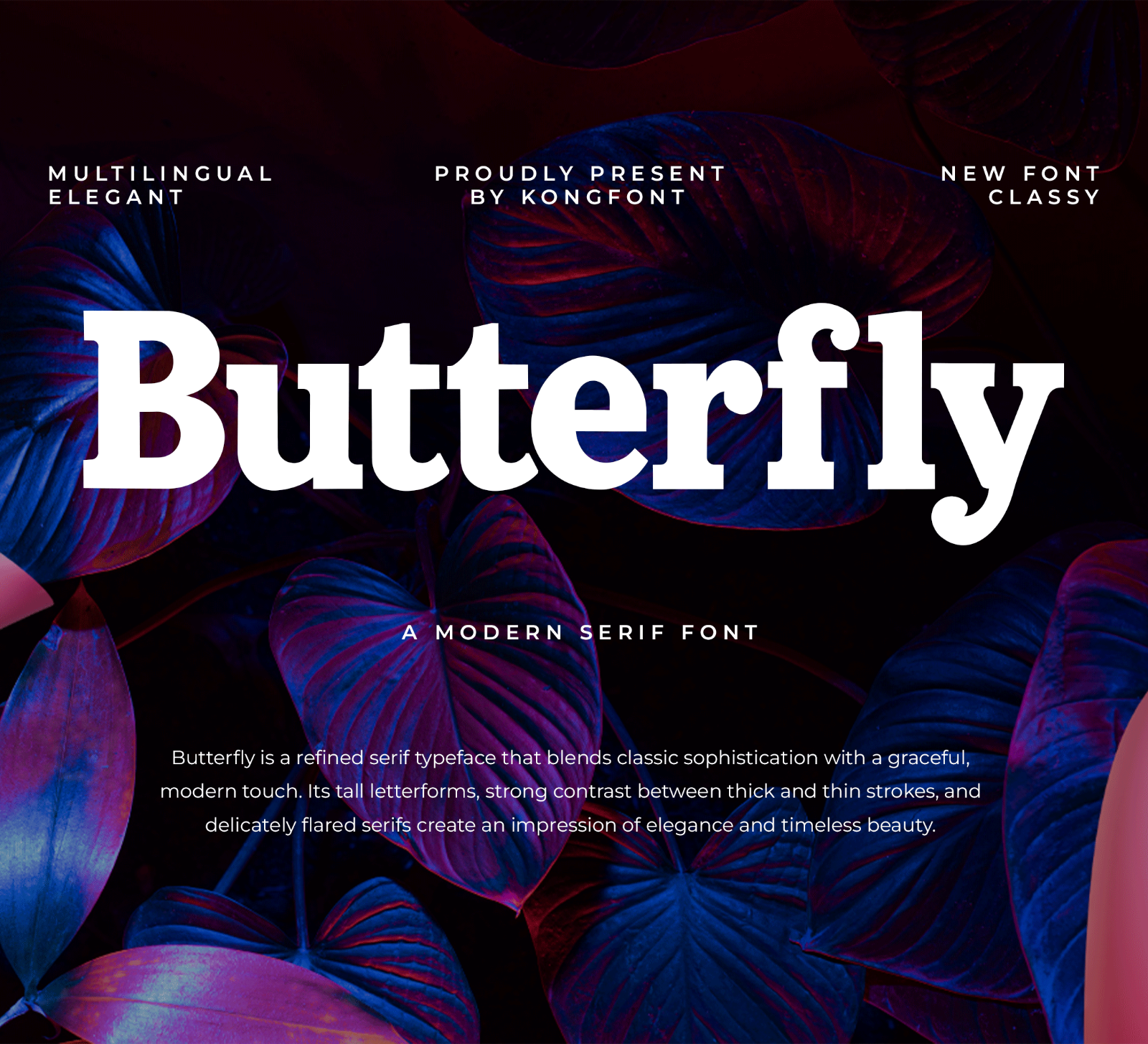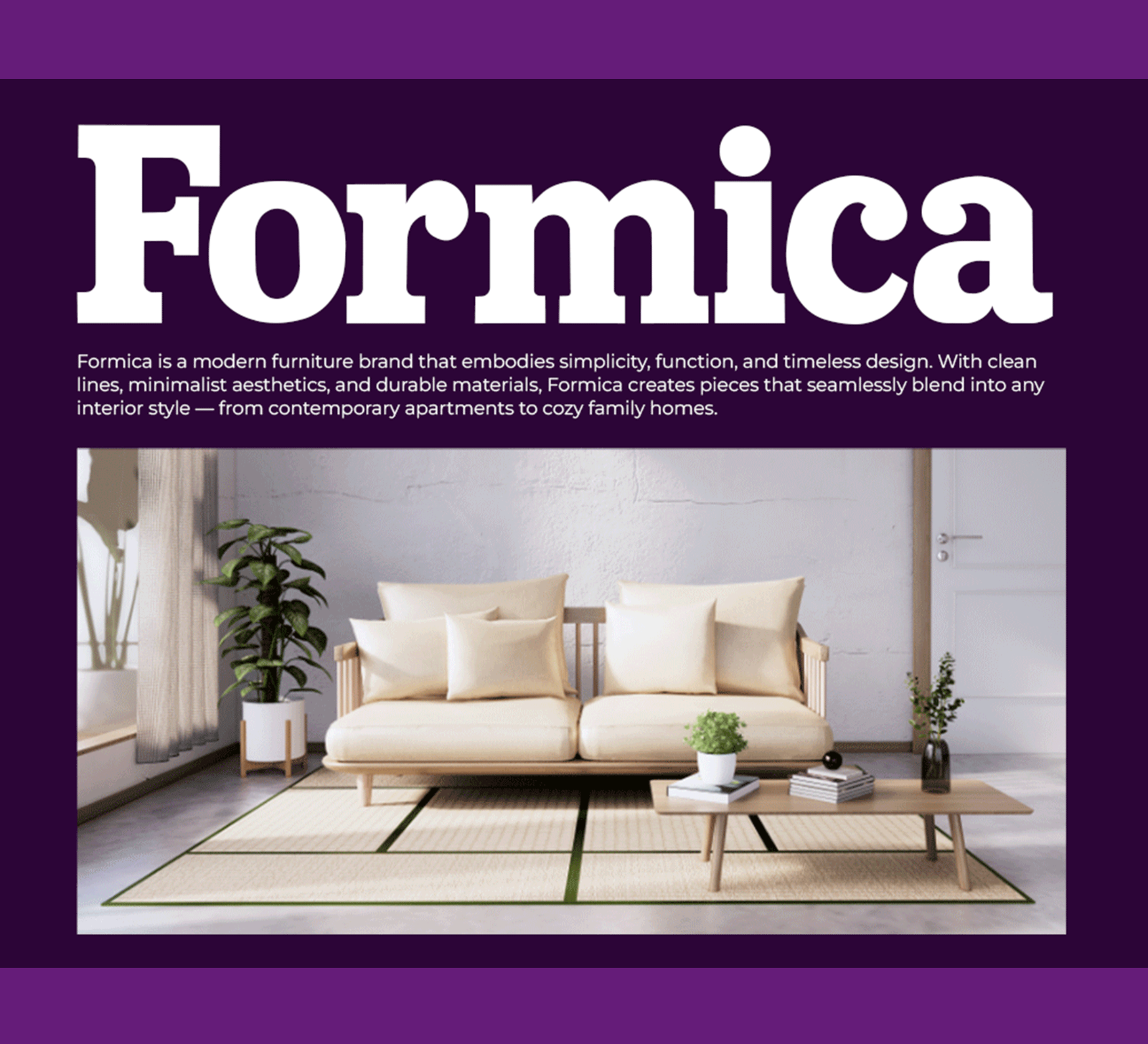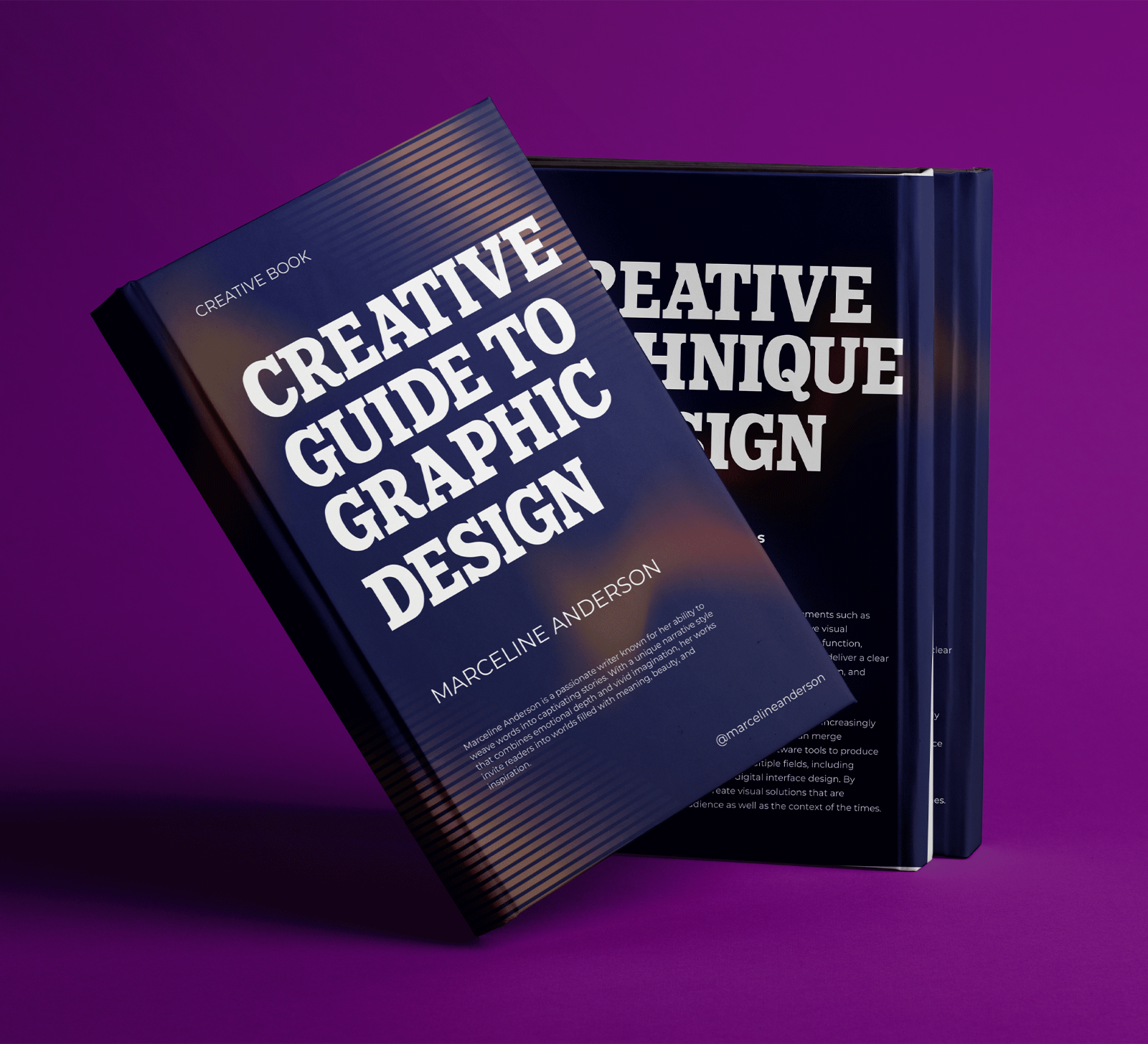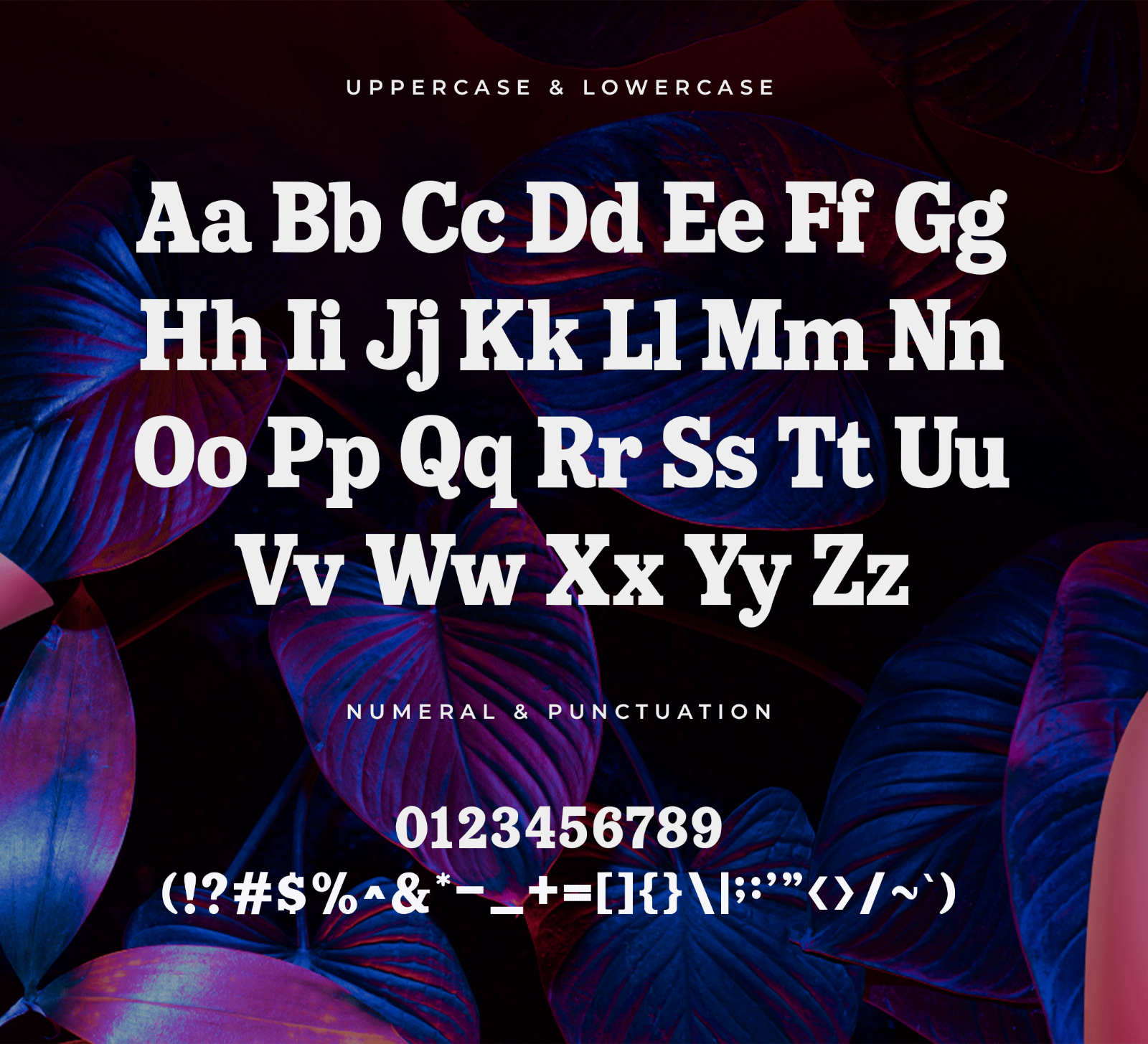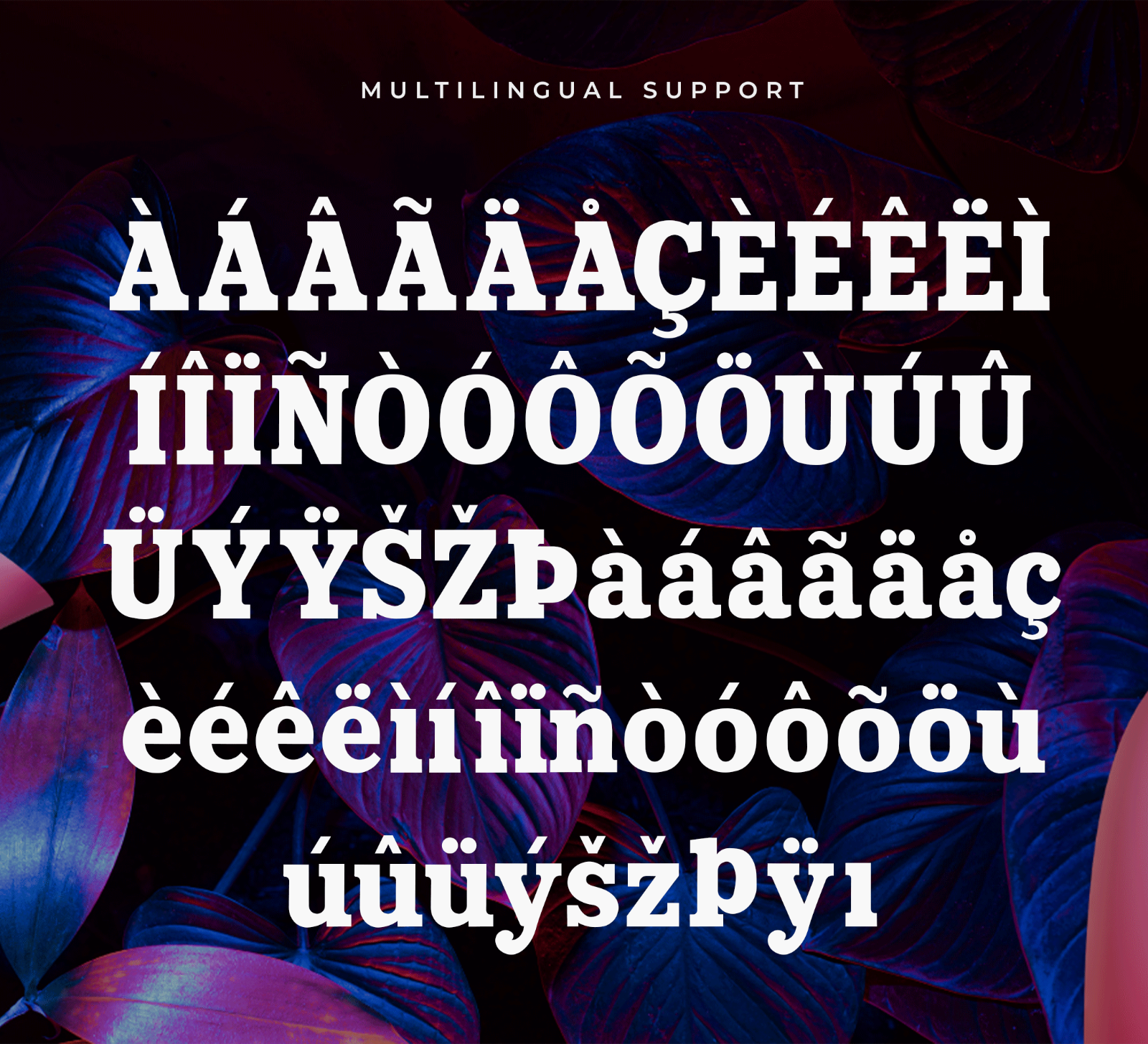
Butterfly is a modern bold serif font with elegant curves, strong letterforms, and a classy contemporary style. Its refined yet eye-catching look makes it perfect for branding, headlines, and stylish display designs.
• Branding
• Logos
• Business cards
• Blog headers
• Quotes
• Editorial titles
• Packaging
• Creative typography